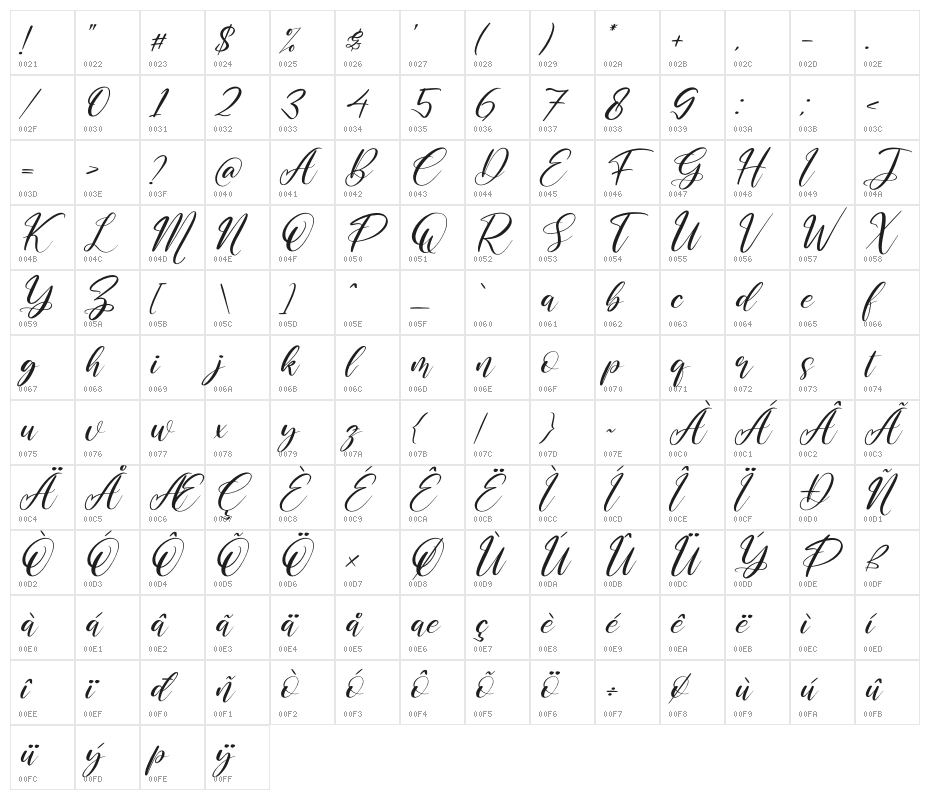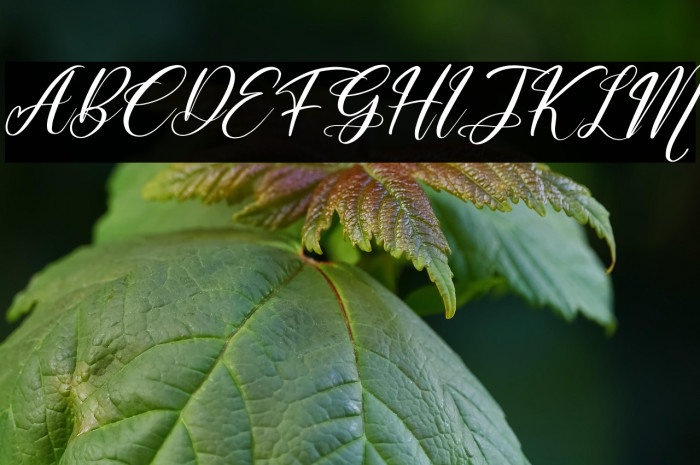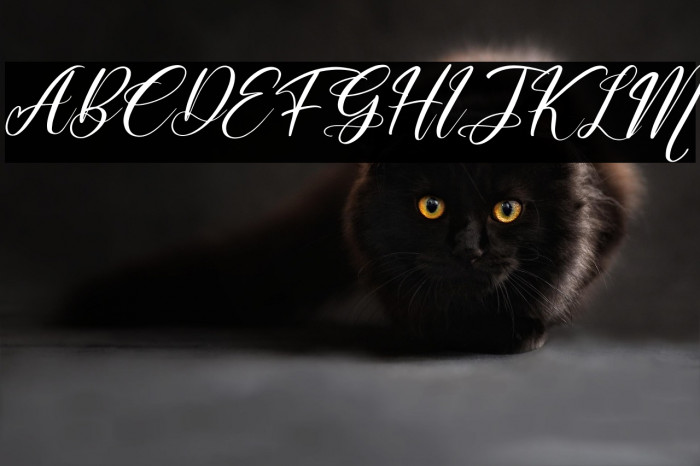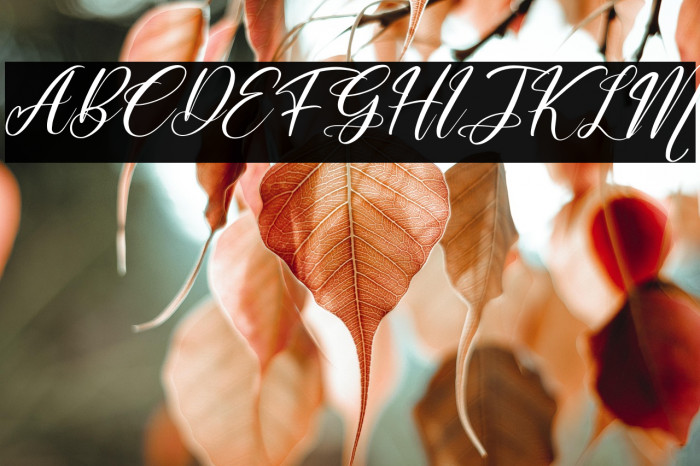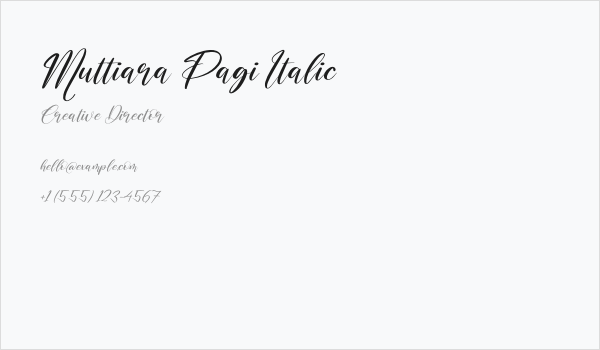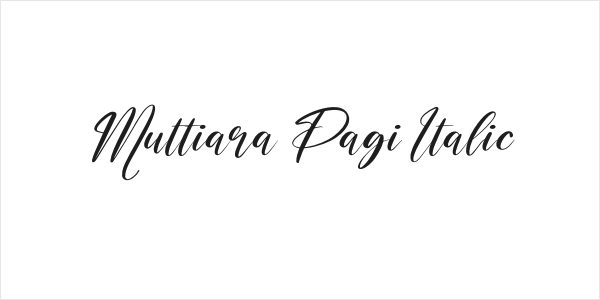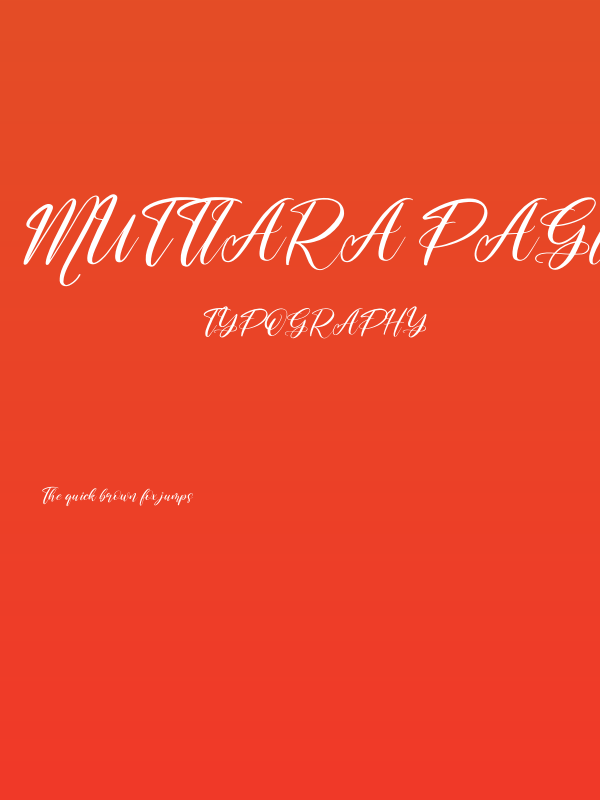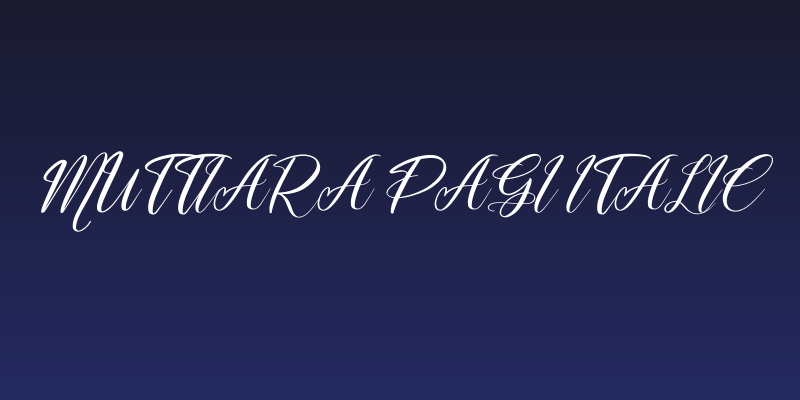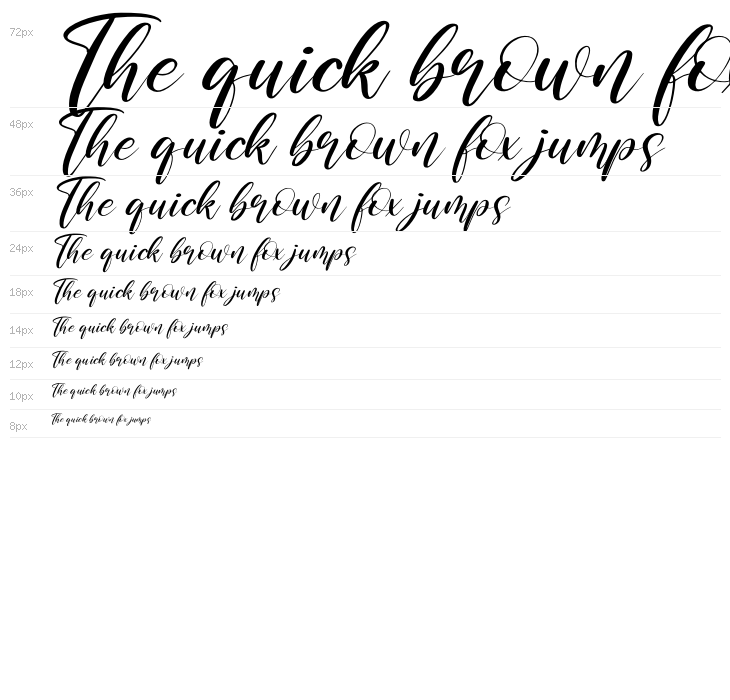
Muttiara Pagi Italic Font
Muttiara Pagi Italic Description
This font features an elegant and flowing script style, characterized by its cursive, italicized letters that exude a sense of sophistication and grace. The uppercase letters are ornate with flourishes, while the lowercase letters maintain a smooth, connected flow. The numerals and special characters are designed to match the overall aesthetic, adding a touch of flair to any text. The font's high contrast in stroke thickness enhances its readability and visual appeal, making it suitable for various decorative purposes.